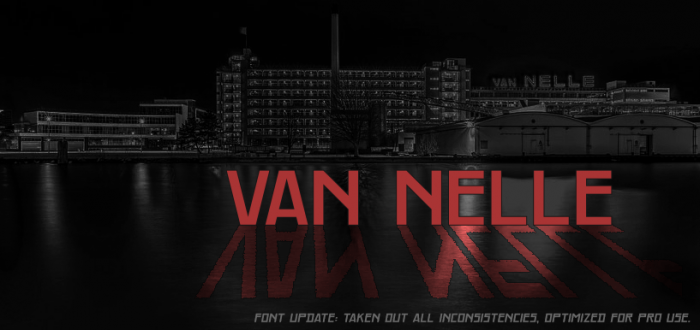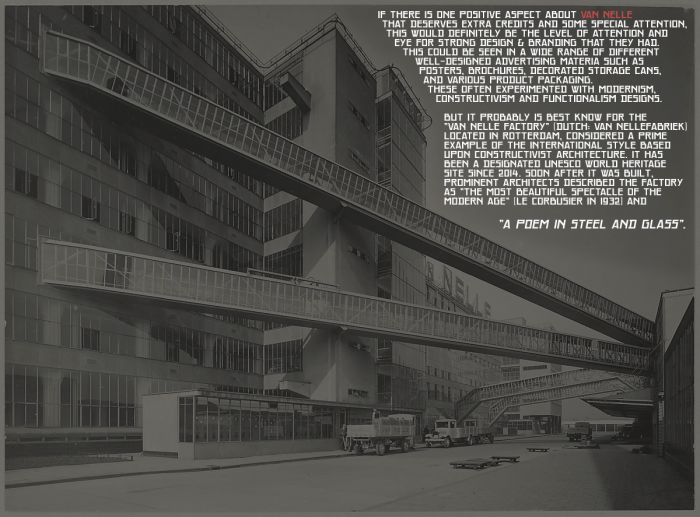
The original classic poster ad. that I used
I wonder why is the vertical height so high? Nevertheless, another great recreation.
LOL yes me too, ive been looking for a brick that might got left behind pulling this apart but couldnt find any.. I might copy the glyphs into a new project soon to see if that helps.
@Anyone: Is it possible that the vertical height is ofset due to the use of awkward filter settings?
Nice rework. What filter settings do you have? Are the glyphs positioned on the baseline?
And yep, all the glyphs are positioned on the baseline, the grid ratio is 2:4 at 1:1 brick size.
Okay nevermind, I found out what the reason for the huge weird vertical spacing, indeed it's the grid ratio, cuz when I put it back in 1:1 the spacing changes back to nornal, but this is changing the vertical scaling of the glyphs as well..
I fixed the vertical spacing by putting filters to 0,5 : 1
great job on the functionalism, i would like to make lowercase outta those.
@SUMMER701: Feel free to do your own interpretation of Jongert's 'Van Nelle' system that includes a lowercase set. Cheers